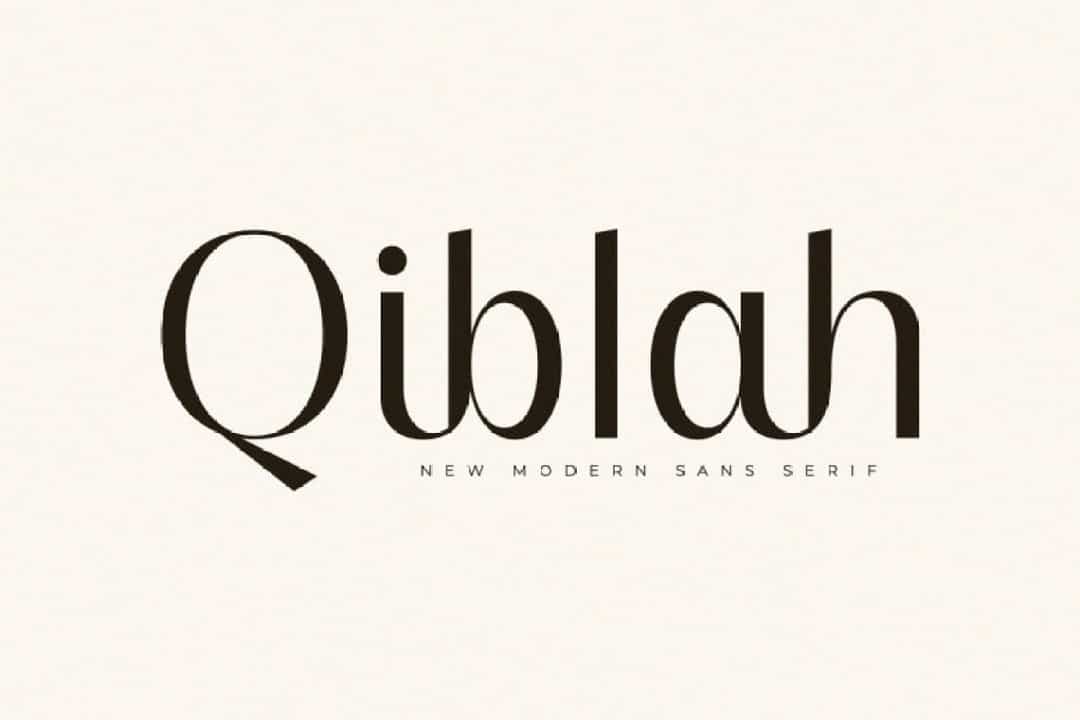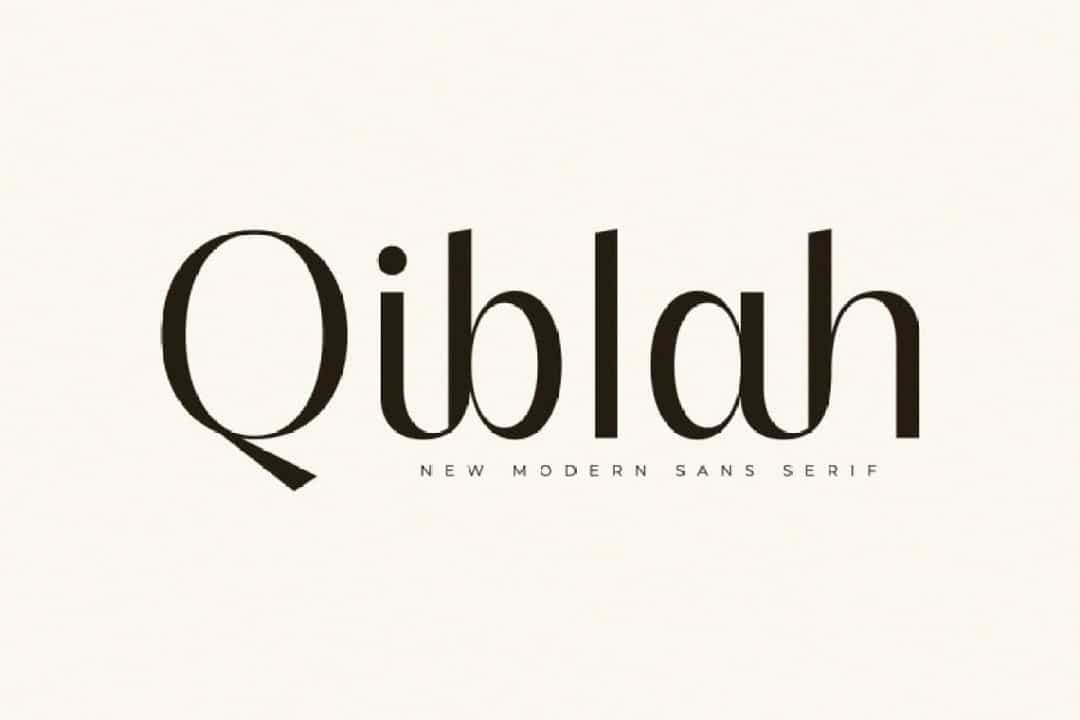
Discover Qiblah Font, part of the Sans Serif collection—a versatile and unique font perfect for adding a personal touch to your projects. Download it for free and enjoy crafting designs with style, from invitations to social media posts. This font is available exclusively for personal use, giving you the freedom to create without limits. Unlock your creativity with Qiblah Font today!
Qiblahis is an exciting modern sans-serif font with its own distinct style and contemporary appearance, perfect for creating stylish logos, movie, book name designs, fashion clothing brand name design, magazine letters, quotes, etc.